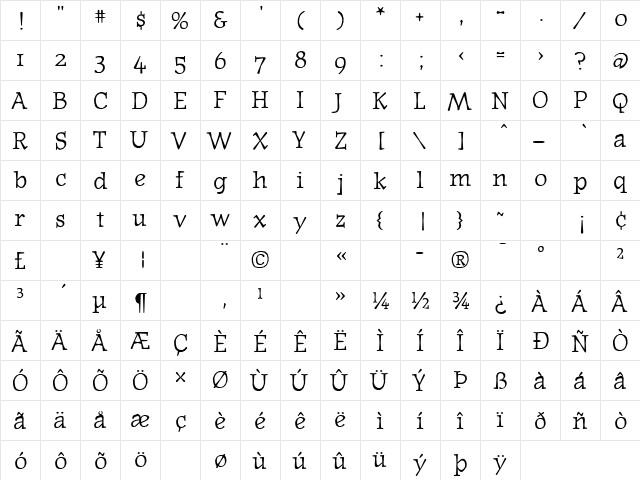
JournalTextOldstyle Regular
Design Context for JournalTextOldstyle Typeface
JournalTextOldstyle carries the refined structure of traditional serif typography, with bracketed terminals and considered proportions that communicate credibility and craft.
Pro Tip: Use JournalTextOldstyle for editorial body copy and considered headline work. Pair with a neutral sans for UI elements or captions to create a classic hierarchy.